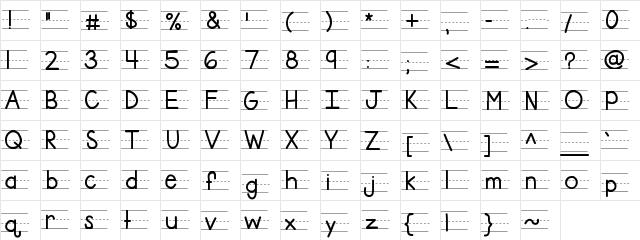
KBFirstGradeLines Medium
Design Context for KBFirstGradeLines Typeface
KBFirstGradeLines takes a measured approach to typography — its balanced proportions and neutral character make it a reliable workhorse for both digital and print work.